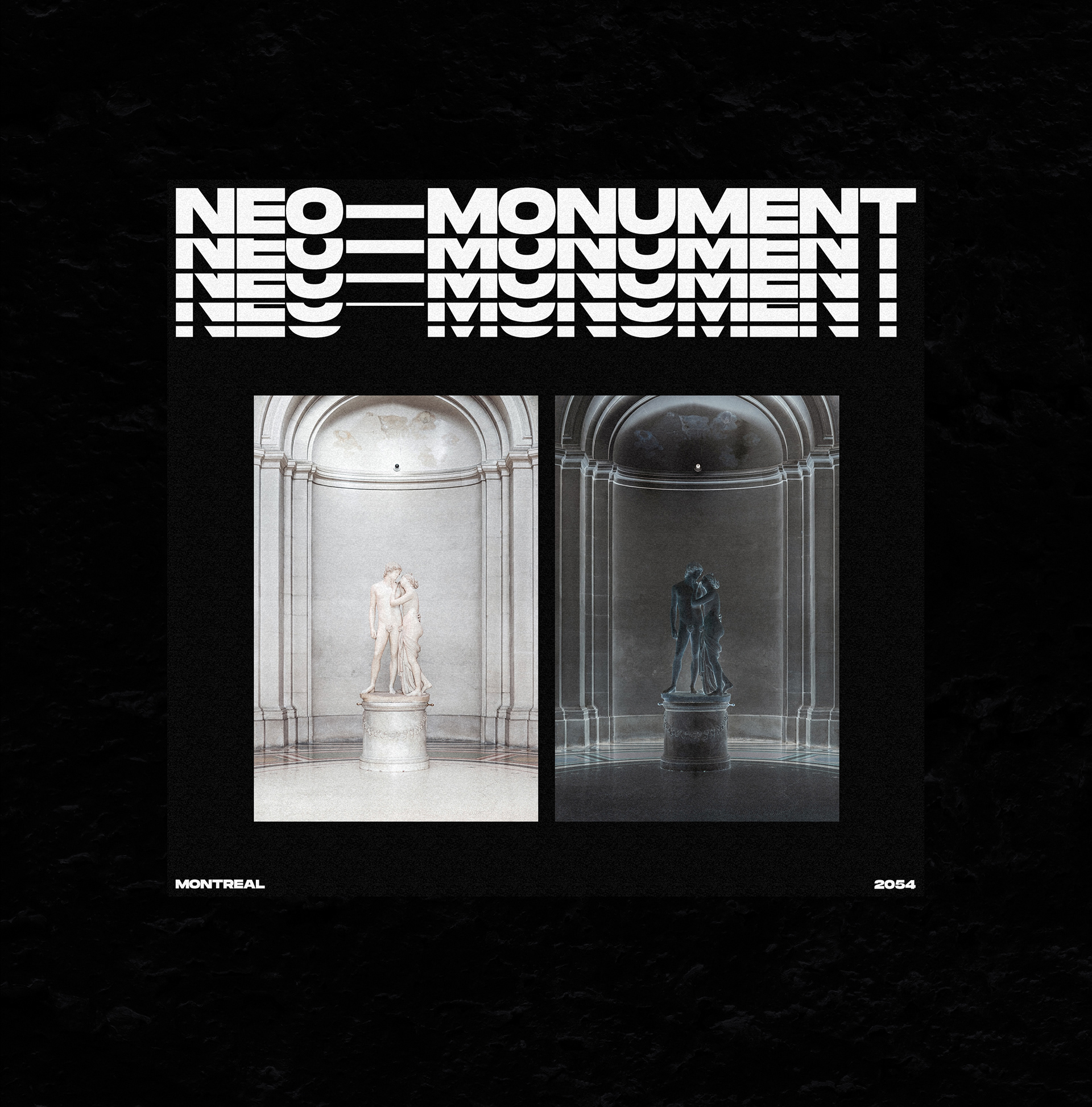
A fellow Montrealer and Art Director Mathieu Desjardins has shared a pretty and ultrabold font on his Behance Profile. Entitled Monument Extended, it's a bold font with a clear intention of perfect your everyday tasks with type. Monument Extended font goes from Ultralight all the way to Ultrabold. I just love the fact that is bold enough for your designs whatever you are designing for a new logo or even explore new typefaces. Check it out, you won't be discontent.
Monument Extended is a powerful quality extended typeface with great versatility. This extended font can be used for bold editorial statements, graphic heavy prints or just as a simple logo. This new type will definitely make your designs stand out and unique.